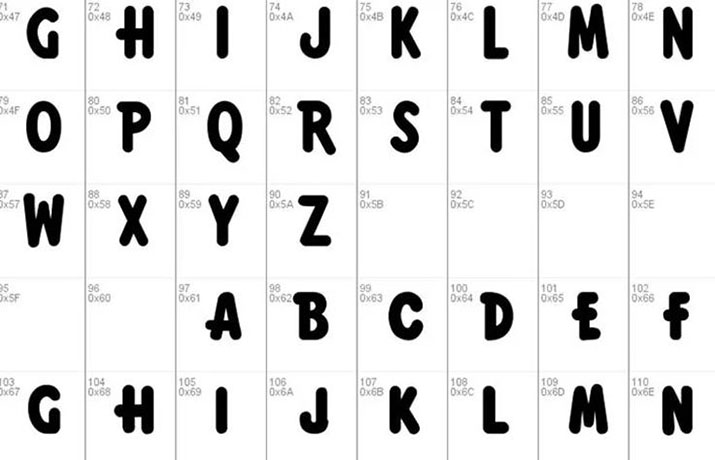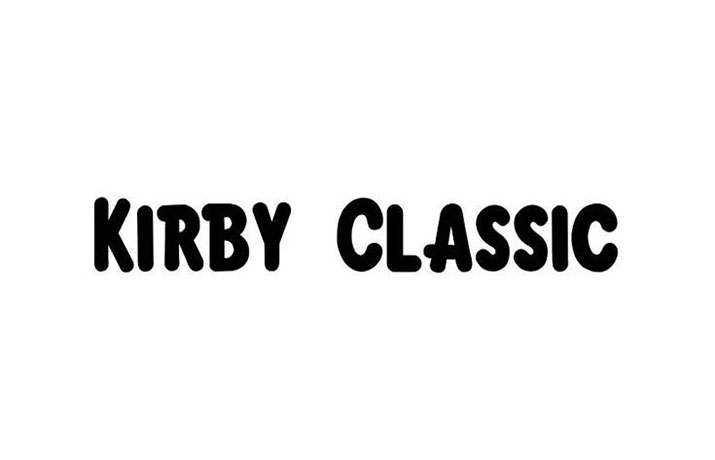
Kirby Classic Font is a bold and playful typeface that mimics the style of classic comic book lettering. It was designed and published by Jackster3000.
Its smooth rounded corners, exaggerated curves, and slightly uneven baseline give it comforting to the eye and give a cartoonish feeling to the viewer.
This font will make a good design for the modern world. Try it out for children’s books, quotes, posters, invitations, flyers, website headers, business cards, and more.
“Kirby Classic typeface comes in a single regular style that possesses True Type features. This font includes 150 characters and 68 unique glyphs. Moreover, it also supports 34 multilingual languages.”
| Style: | Display, Fancy, Comic |
- Because of the elegant font used, this design is ideal for a wide range of applications, including logo design, product packaging, comic covers, game titles, game developments, movie posters, unique emblems, game graphics, product designs, special event cards, cartoons, titles, social media banners, headers, kid’s elements, headers, banners, flyers, headers, card printing, and much more.
This font supports 34 multilingual languages.